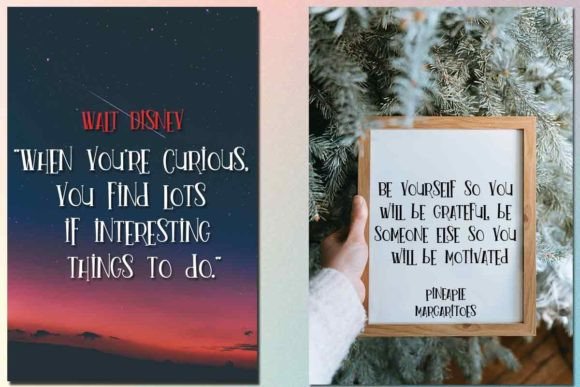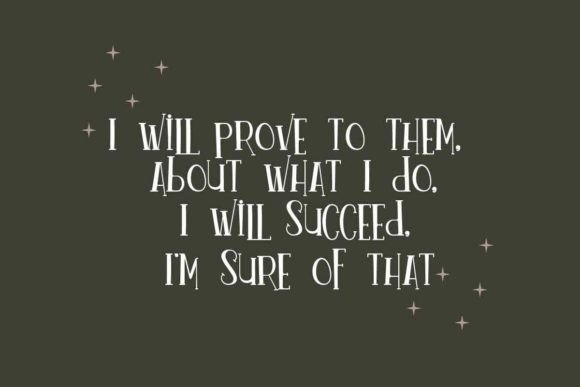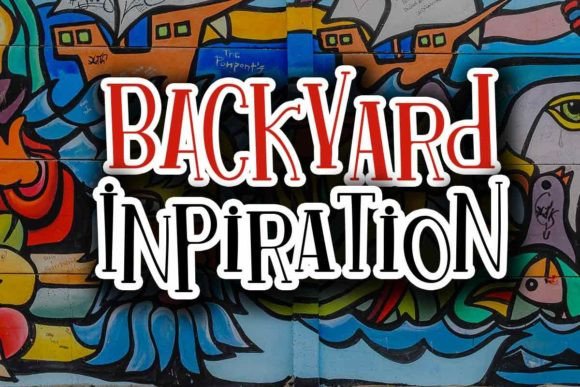
Introduction to Pineapple Margaritoes Font
Pineapple Margaritoes is a unique and attractive font.
The appearance is very special and the display effect is very beautiful It is suitable for all types of cheerful designs and displays a happy impression.